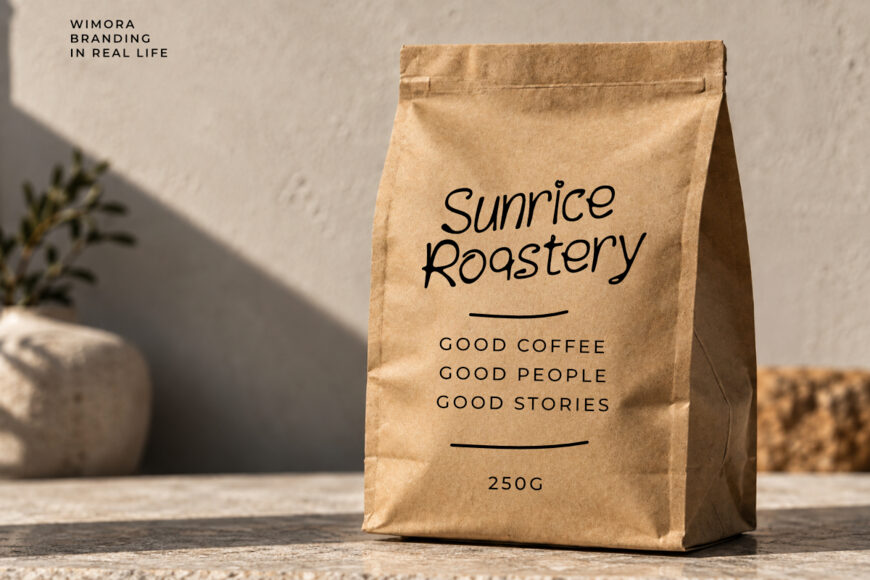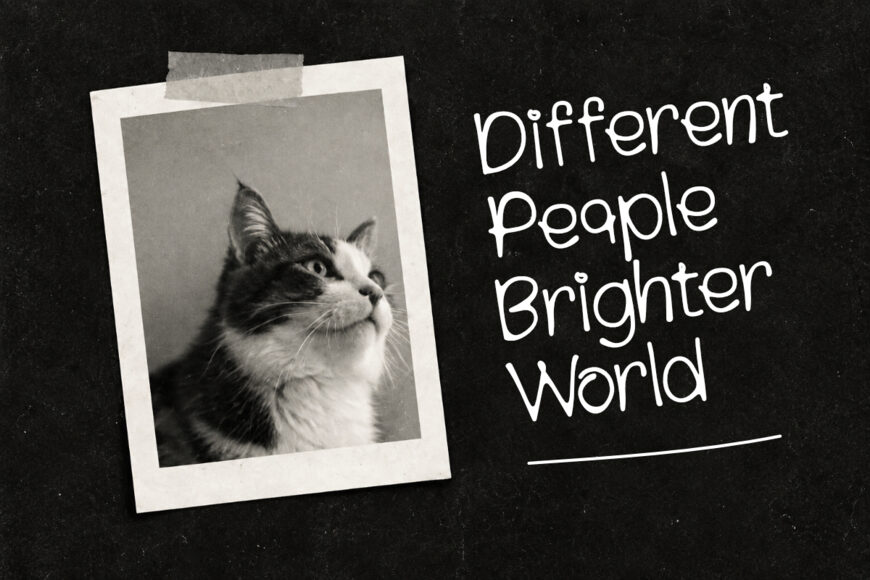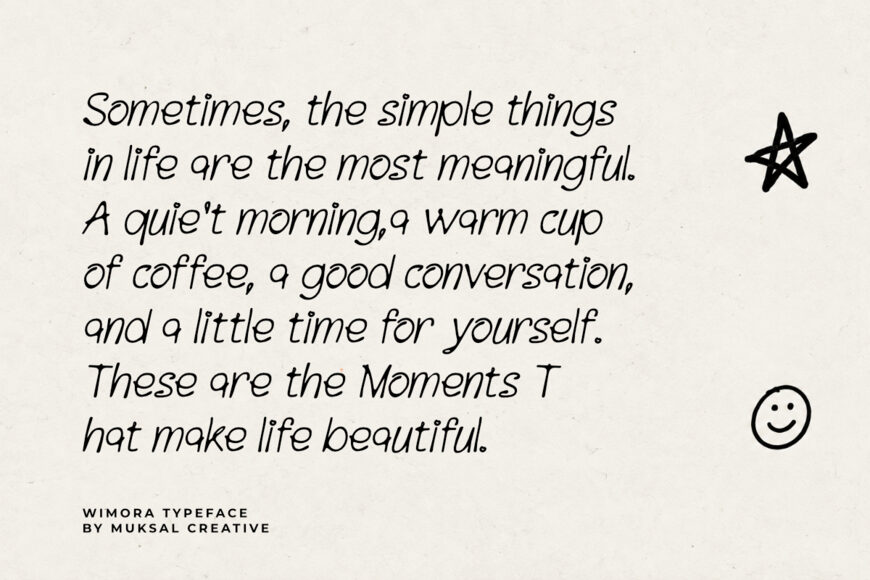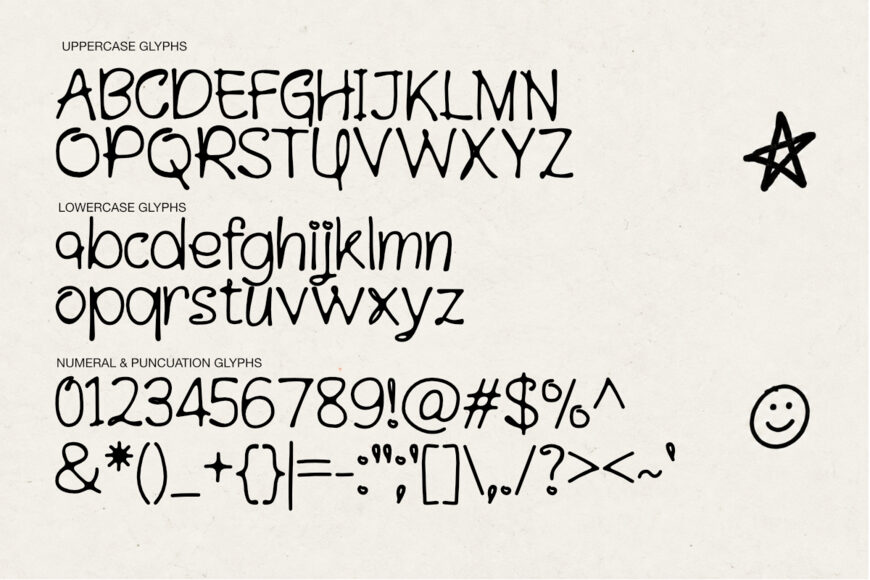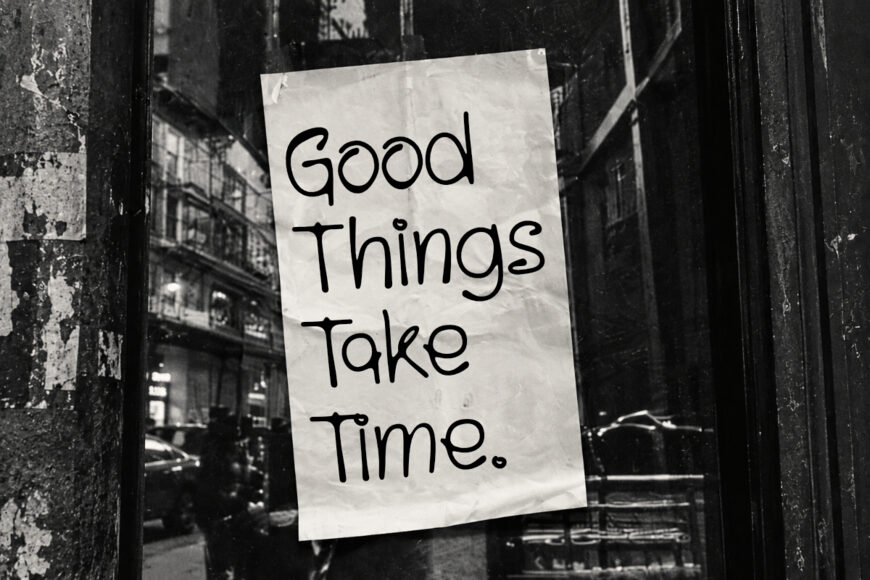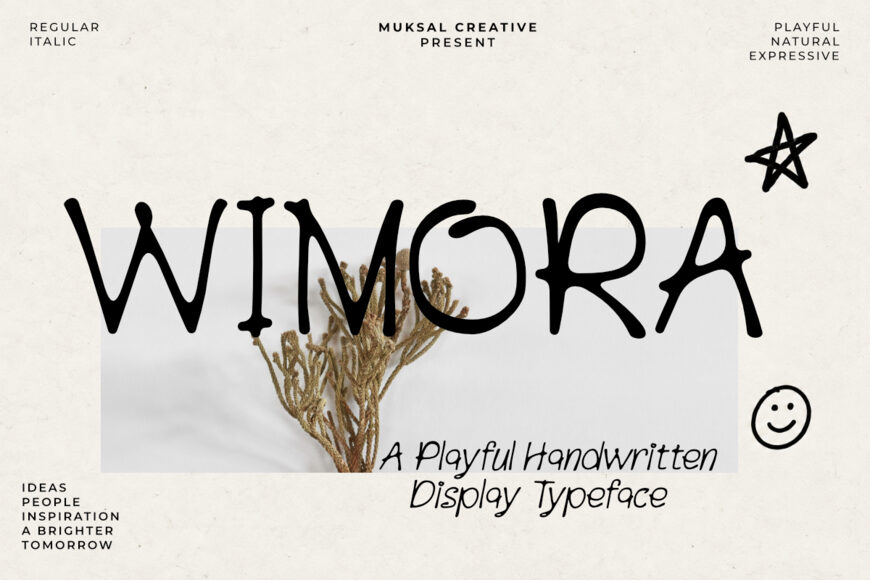
Wimora Font
WIMORA is a playful and expressive handwritten typeface designed to bring a natural, quirky, and creative personality to your designs. Featuring tall, slightly irregular letterforms and charming hand-drawn details, WIMORA captures the spontaneous character of real handwriting while maintaining a modern and versatile appearance.
With its distinctive letterforms and imperfect human touch, WIMORA is ideal for branding, packaging, posters, editorial designs, social media graphics, apparel, invitations, stationery, lifestyle products, album artwork, and creative advertising.